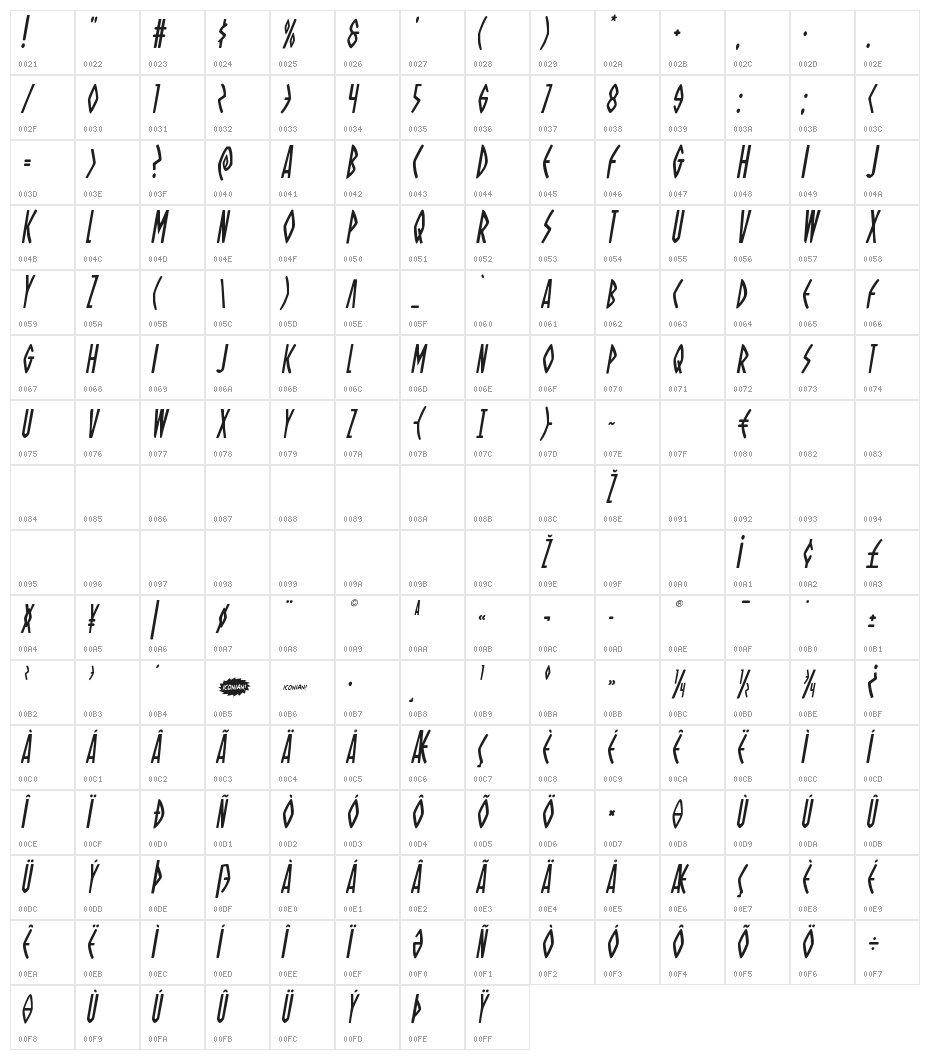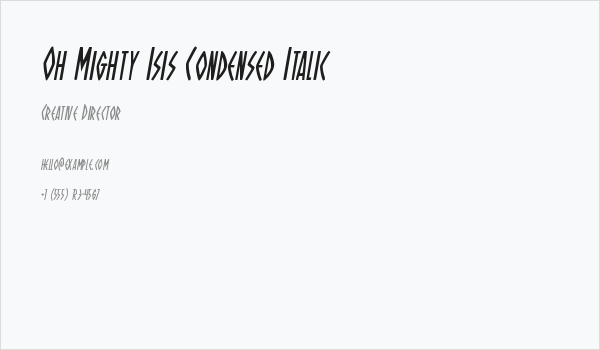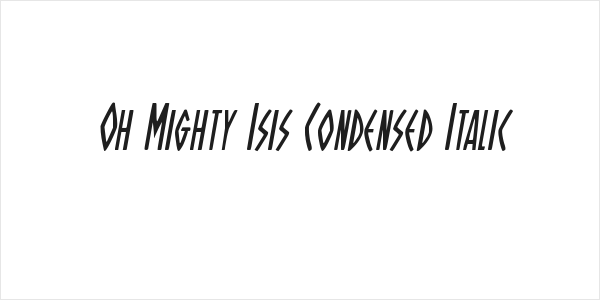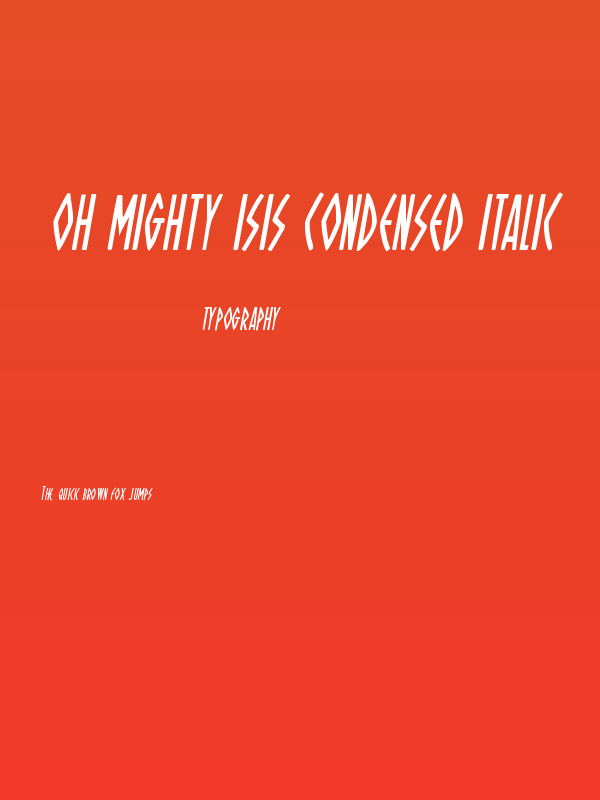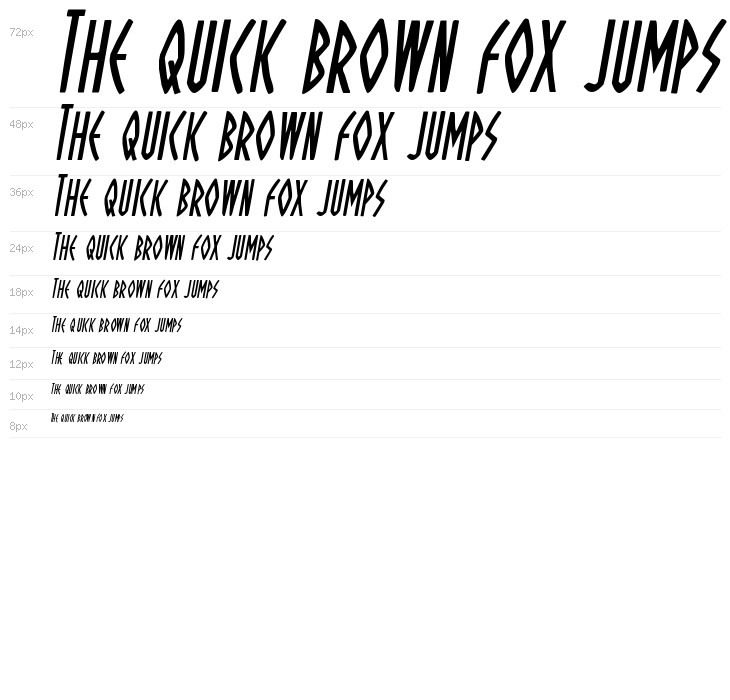
Oh Mighty Isis Condensed Italic Font
Oh Mighty Isis Condensed Italic Description
This font features a dynamic and energetic style with tall, narrow characters that are sharply angled, creating a sense of movement and urgency. The condensed form allows for efficient use of space, making it ideal for impactful headlines and titles. Its italic nature adds a slanted, forward-leaning appearance, enhancing the sense of speed and modernity. The strokes are consistent in width, providing a clean and uniform look. This font is particularly suitable for projects that require a bold statement or a contemporary edge.
Proposed ProjectsIdeal for advertising, posters, magazine covers, and branding projects that require a bold and modern aesthetic.